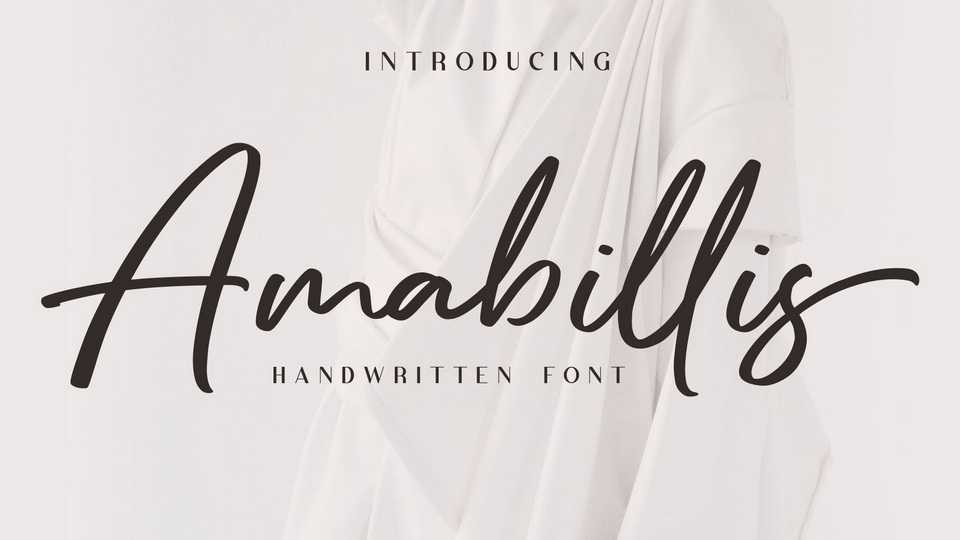
Download Amabillis font, a stylish handwritten typeface if you believe in your own strength. This calligraphy harmony gives the impression of being luxurious, free and sophisticated.